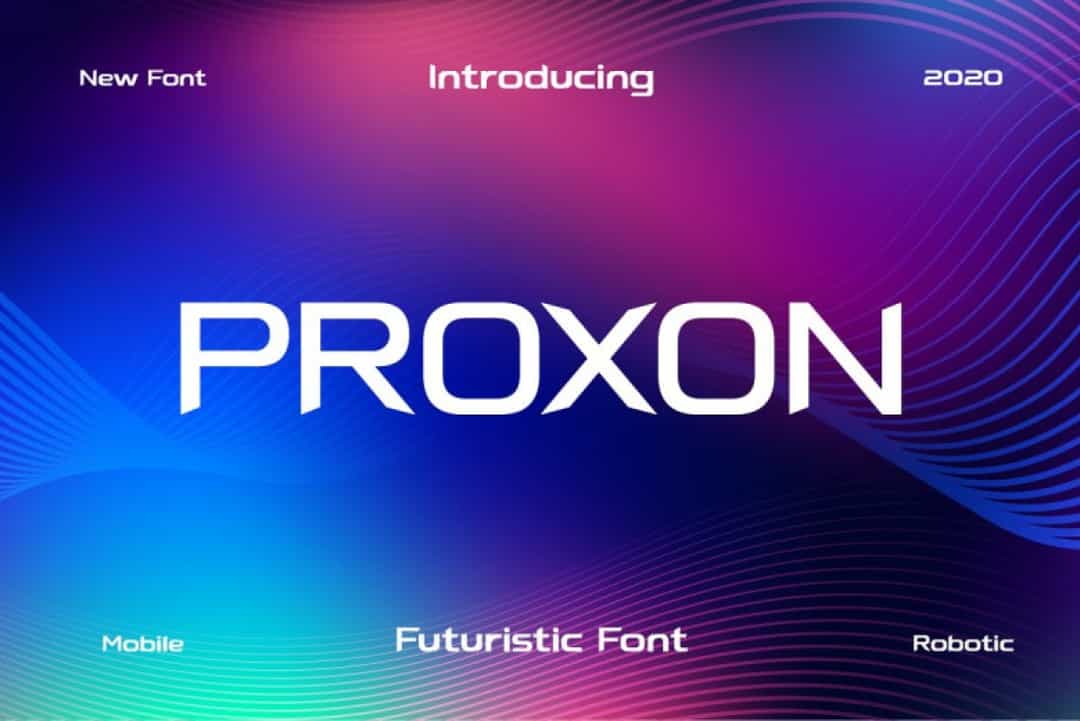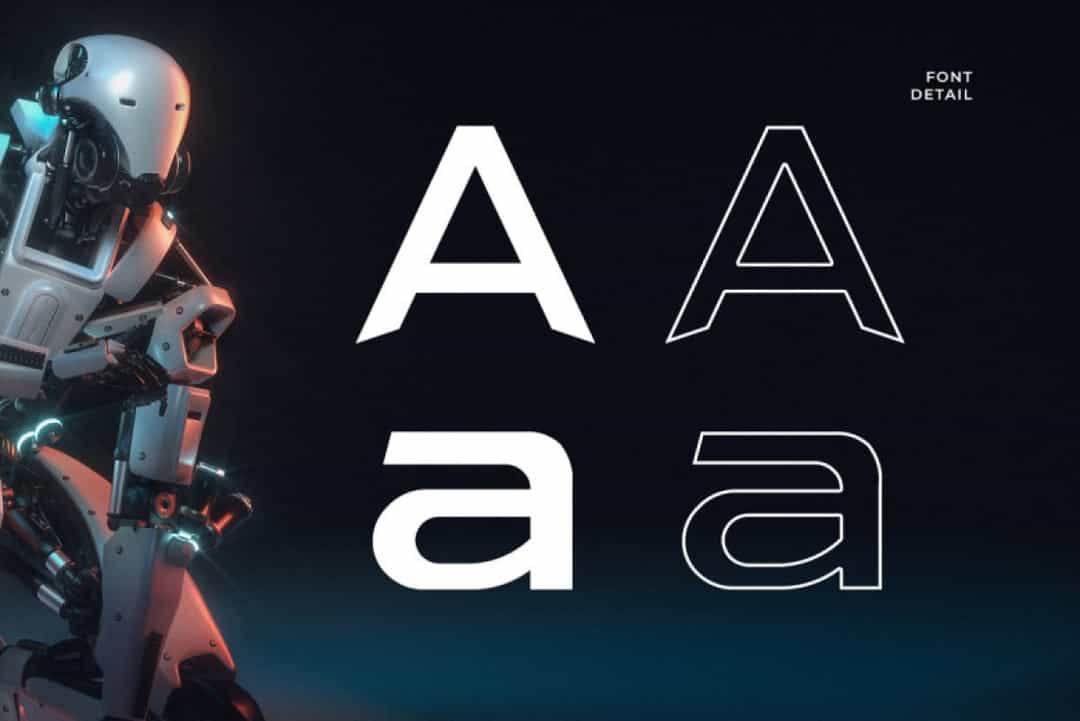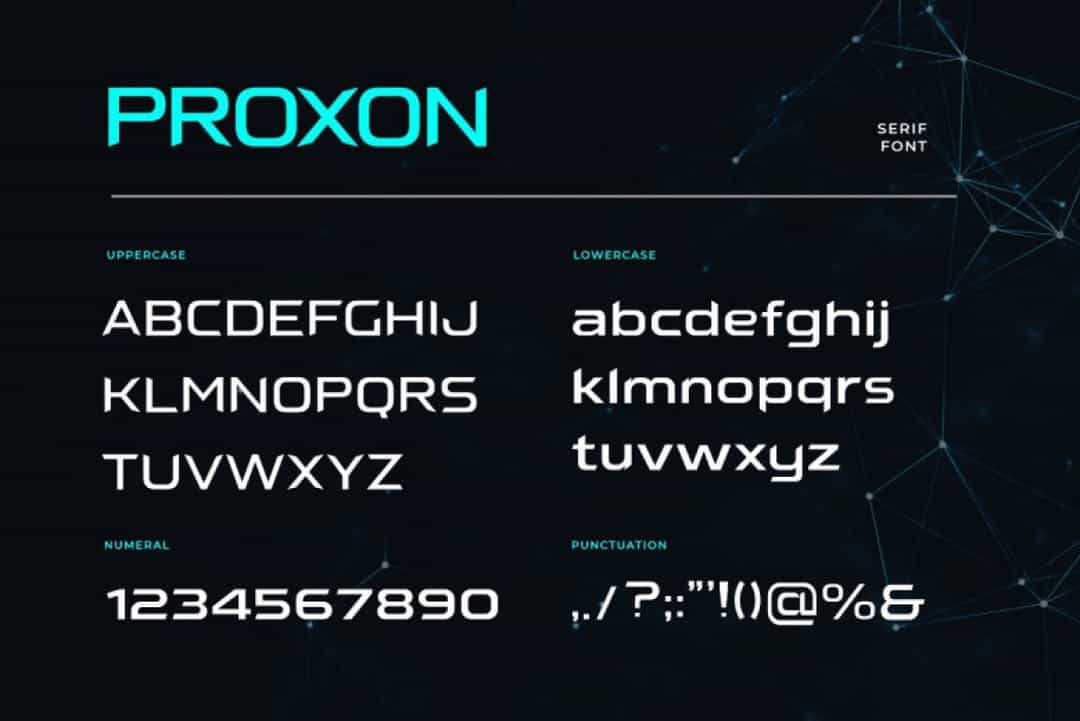
Proxon is a contemporary Sans Serif font designed with science fiction and technology as its inspiration, giving it a contemporary appearance. Fun yet scientifically friendly, Proxon can be used in magazines, branding marketing design tech sci fi scifi design bags headlines display design elements or shorter length text blocks for maximum effect.